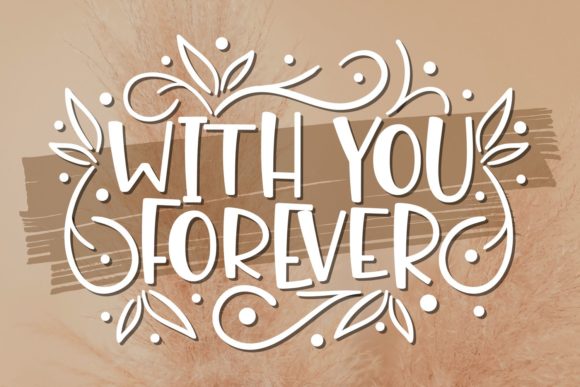
Embrace the wonders of With You Forever, the enchanting script font that effortlessly weaves love and elegance into every letterform. Designed with meticulous attention to detail by the talented Rifki of 7ntypes, this font is a masterpiece waiting to be unveiled.
With With You Forever, you can effortlessly transform your creative visions into tangible realities. Its flowing strokes and delicate curves dance across the page, evoking a sense of timeless romance and heartfelt emotion. From love letters penned with adoration to wedding invitations adorned with elegance, this font becomes a conduit for expressing the ineffable depths of your heart.
Immerse yourself in the world of With You Forever and discover a font that transcends the ordinary. Its smooth, graceful lines invite you to explore the beauty of handwritten artistry, while its inherent versatility allows it to effortlessly adapt to any creative endeavor. Whether you're designing enchanting logos, crafting heartfelt greeting cards or adding a touch of charm to your social media graphics, With You Forever becomes your trusted companion, enhancing your designs with an aura of sophistication and timeless grace.
With With You Forever at your fingertips, you can confidently express your creativity without limits. Its seamless compatibility with various design software ensures effortless integration into your workflow, while its extensive character set supports a multitude of languages, making it a font that speaks to hearts across borders. As you embark on your creative journey with With You Forever, you'll discover a font that not only enhances your designs but also enriches your creative experience, leaving an everlasting impression on all who encounter it.